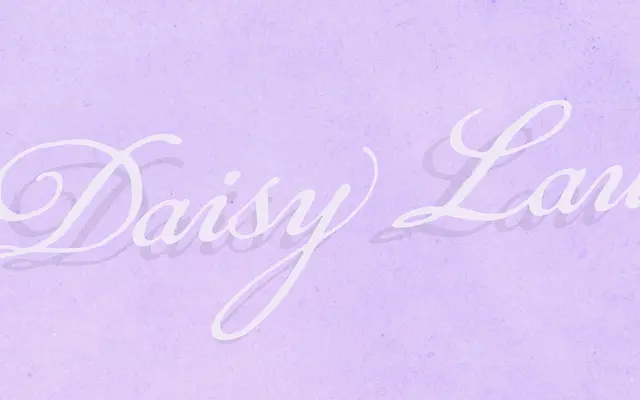
Daisy Lau
A 19th-century-inspired script with inky, handwritten texture suited to vintage and historical design work.
Modelled on 19th-century script styles, this typeface carries an inky, handwritten quality that suggests pen on paper rather than digital construction. Flowing strokes and organic variation in stroke weight give it an antique character well-suited to packaging, branding and editorial work that calls for period authenticity. A single-weight offering from Dharma Type, pitched squarely at vintage and nostalgia-driven projects.
Daisy Lau is a script typeface directly modelled on 19th-century handwriting styles, featuring inky texture and flowing strokes characteristic of period penmanship.